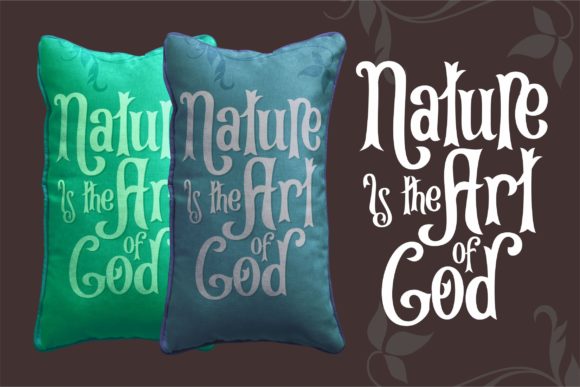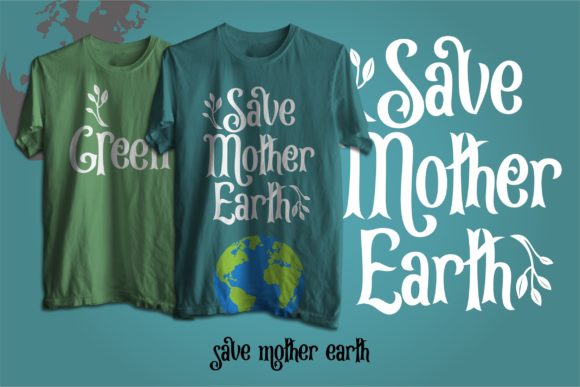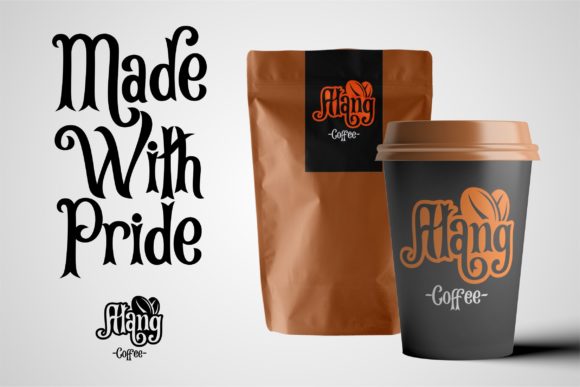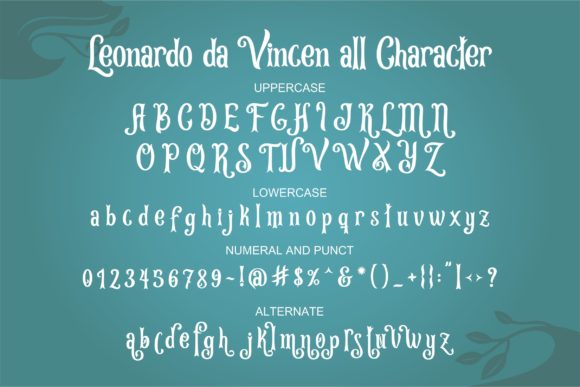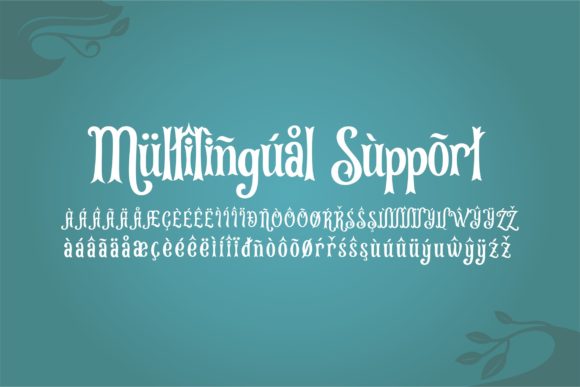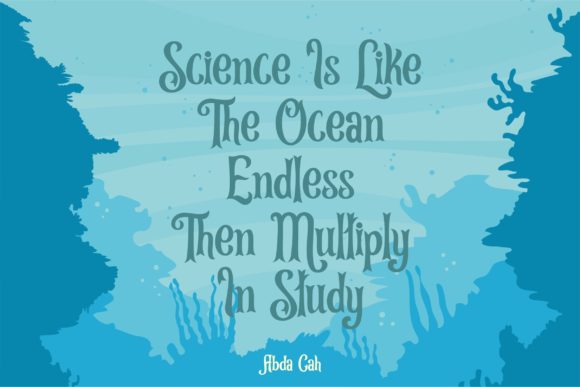
Introduction to Leonardo Da Vincen Font
Leonardo Da Vincen is a new display font with a style that is quite unique.
Inspired by nature this lovely font can be used for quotes, logos, label designs for foods and beverages and so much more .